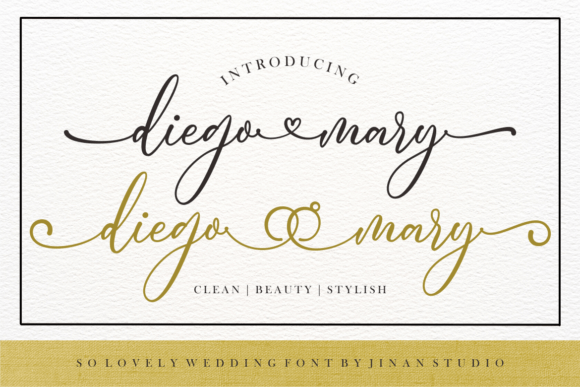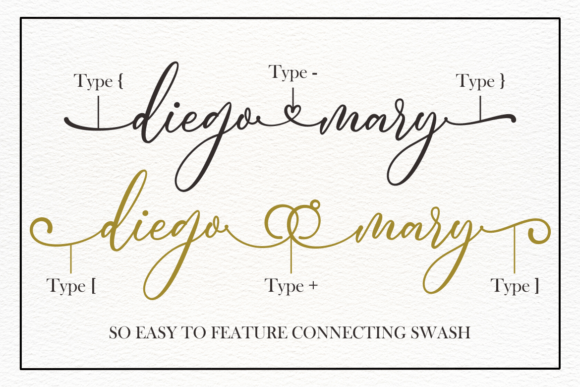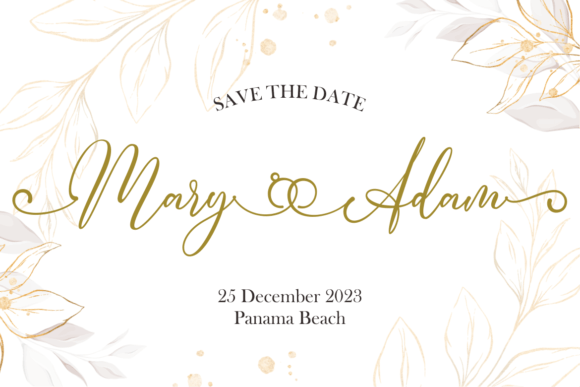
Diego Mary Font: Elegant Handwritten Script for Wedding Designs
About the Diego Mary Font
Elevate your designs with Diego Mary Font, a font that combines sophistication with readability. Diego Mary is a stylish, beauty and modern handwritten font, suitable for a wide spectrum of applications. From greeting cards, wedding cards to headlines, this font will guarantee a romantic touch to each of your creations! Diego Mary font is PUA encoded which means you can access all of the glyphs and swashes with ease.
Its elegant, romantic style makes Diego Mary ideal for projects requiring a touch of sophistication: wedding invitations, branding for luxury goods, or short, impactful headlines. However, its delicate nature makes it less suitable for body text or UI elements where readability over long passages is crucial. Avoid using it in small sizes or for dense blocks of text.
To complement its handcrafted feel, pair Diego Mary with a clean sans-serif like Montserrat for body copy, or a classic serif such as Garamond for a more traditional feel. For a modern contrast, consider pairing it with a geometric sans-serif like Futura.
Diego Mary possesses a distinctly feminine and graceful personality. Its inherent elegance and romantic charm make it a powerful choice for brands focusing on beauty, fashion, or high-end products where a sense of refined style is paramount.
Diego Mary Font Usage Examples
Diego Mary Font Example